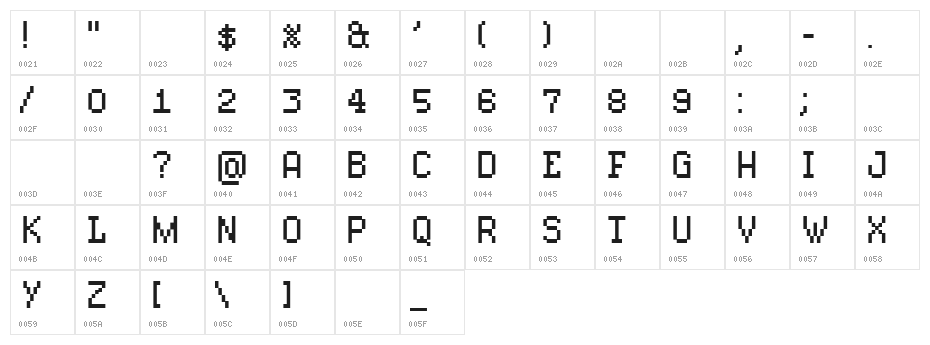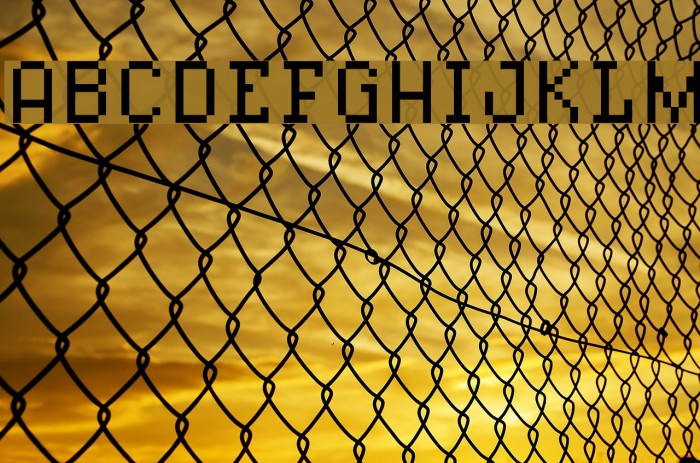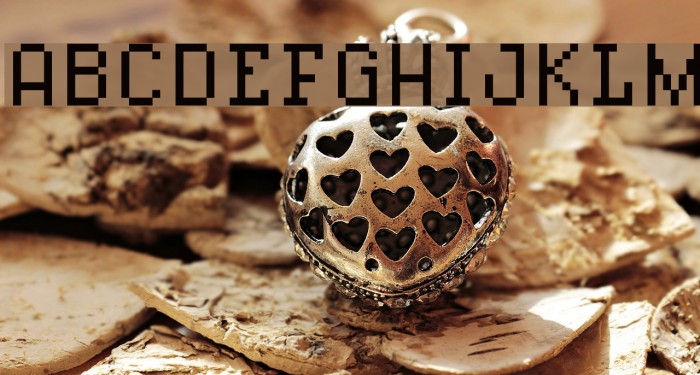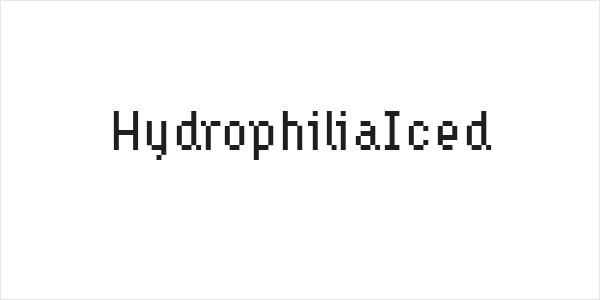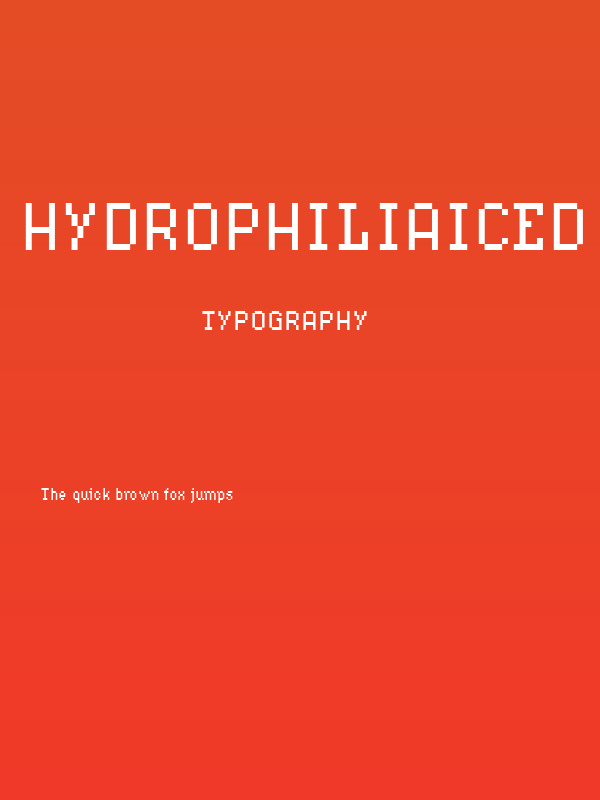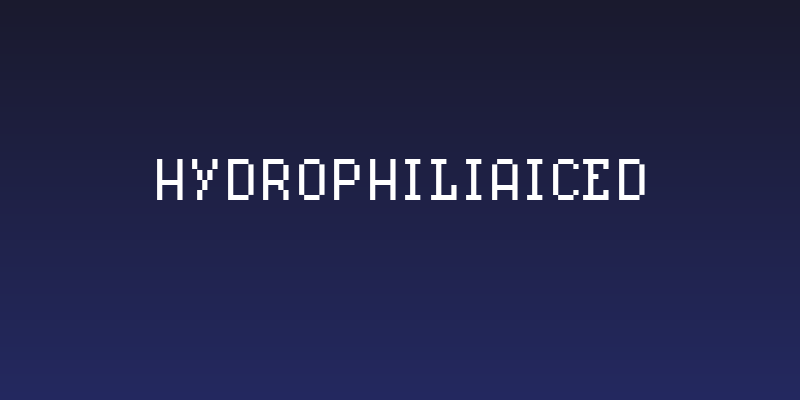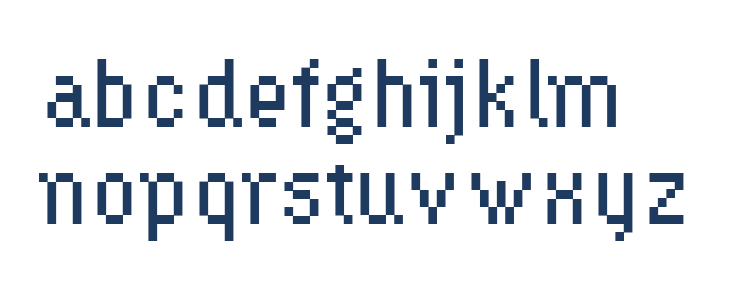
HydrophiliaIced Font
HydrophiliaIced Description
This font features a pixelated, blocky design reminiscent of early digital or arcade-style typefaces. Each character is constructed with a uniform grid-like structure, giving it a distinctly retro and technical appearance. The uppercase and lowercase letters maintain a consistent height, with minimal differentiation between them, emphasizing a monospaced aesthetic. Numbers and special characters follow the same pixelated pattern, ensuring uniformity across all glyphs. The overall style is straightforward and geometric, making it ideal for projects that require a nostalgic or digital theme.
| Overall Style | Retro, Digital |
| Use Case | Headlines, Logos, Digital displays |
| Proposed Projects | Ideal for video game design, digital art projects, retro-themed posters, and any creative work that seeks to evoke a sense of nostalgia or early digital aesthetics. |